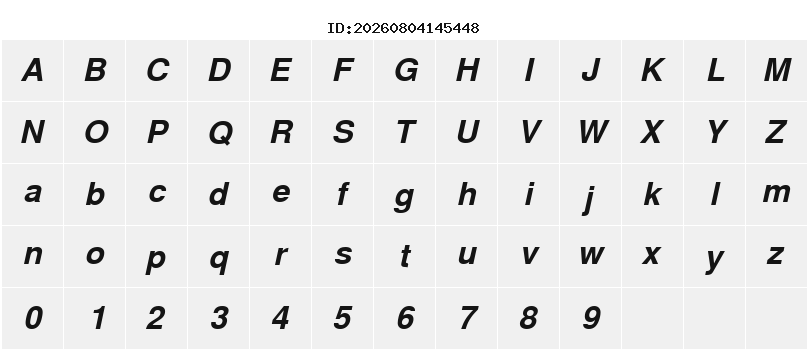
NimbusSanLCY Preview
• Font Name: NimbusSanLCY
• Font ID: URW:NimbusSanLCY-BoldItal:1994
• Full Font Name: NimbusSanLCY Bold Italic
• PostScript Name: NimbusSanLCY-BoldItal
About NimbusSanLCY.ttf
NimbusSanLCY.ttf is a modern, elegant sans-serif font designed for ultimate readability and visual harmony. Perfect for branding, headlines, web design, and print materials.